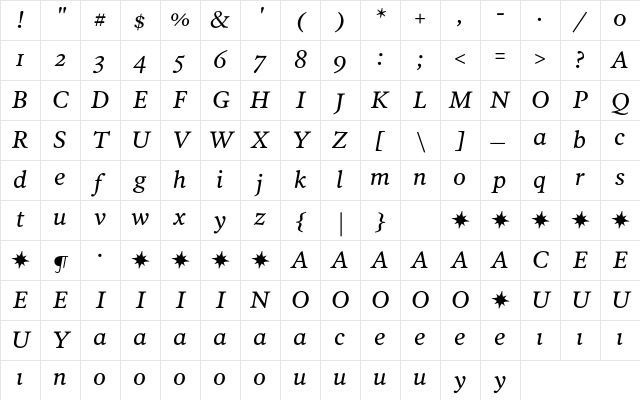
PoynterText ItalicTwo
Style: ItalicTwo
Complete PoynterText ItalicTwo glyph index. Displaying only characters natively supported by PoynterText ItalicTwo font.
Design Context for PoynterText
PoynterText is a composed and adaptable typeface that performs quietly and consistently across a wide range of design contexts. The slanted form adds forward momentum and visual energy.
Pro Tip: Use PoynterText for emphasis, pull quotes, and subheadings where its slanted energy can add rhythm to the layout.